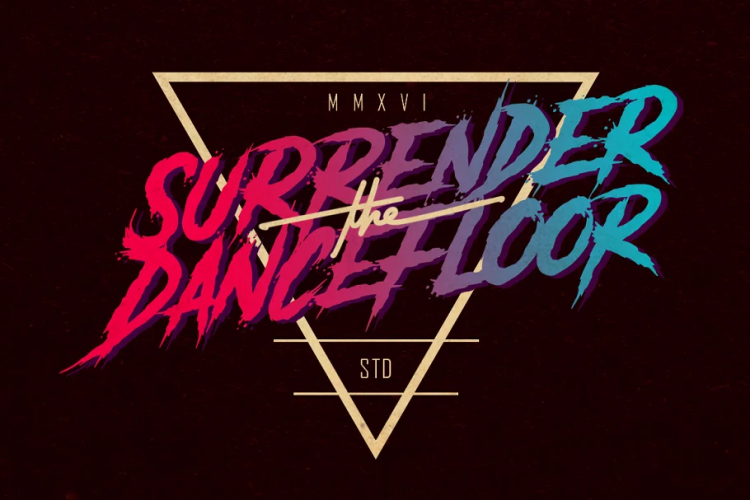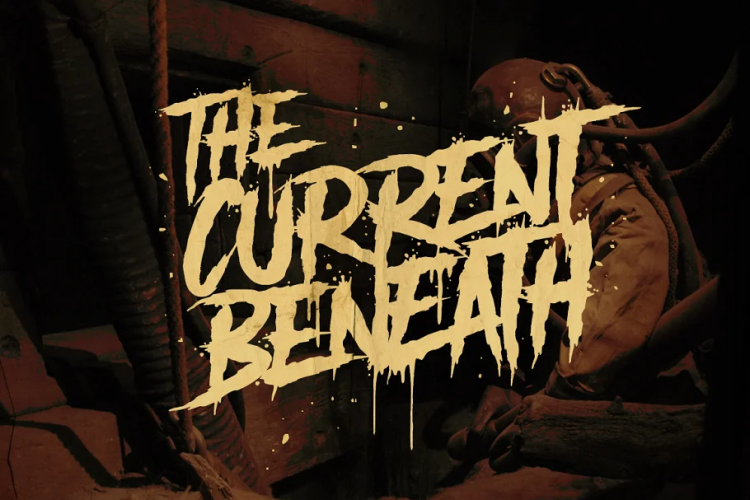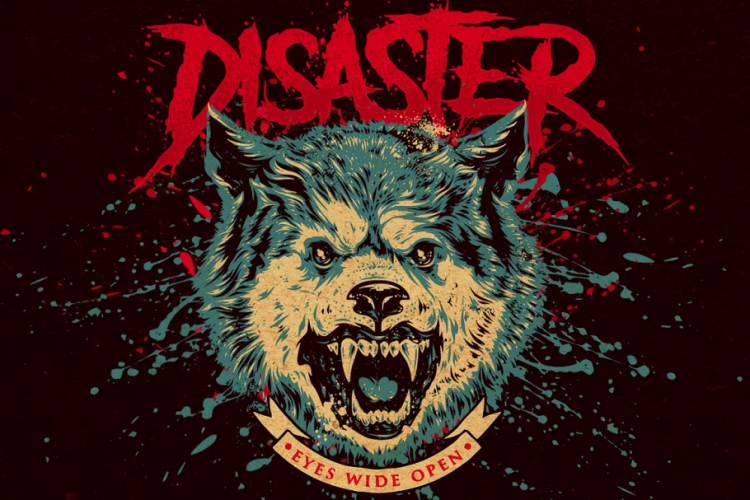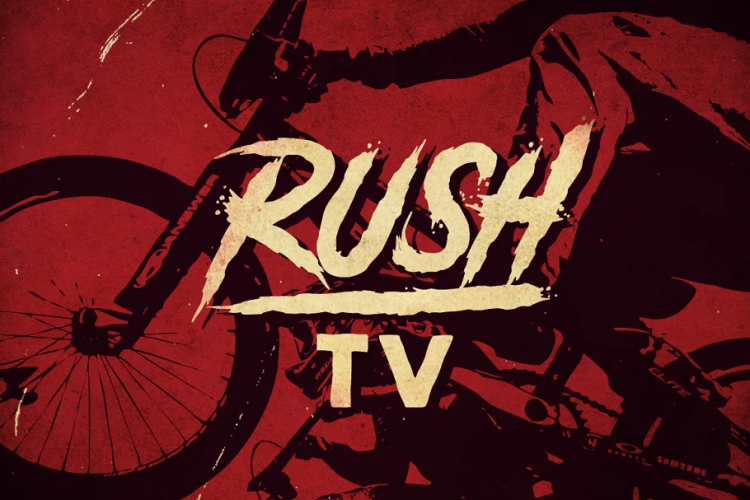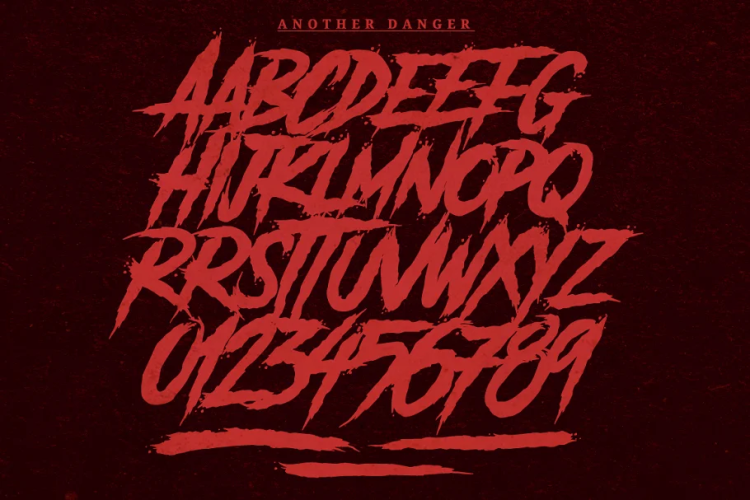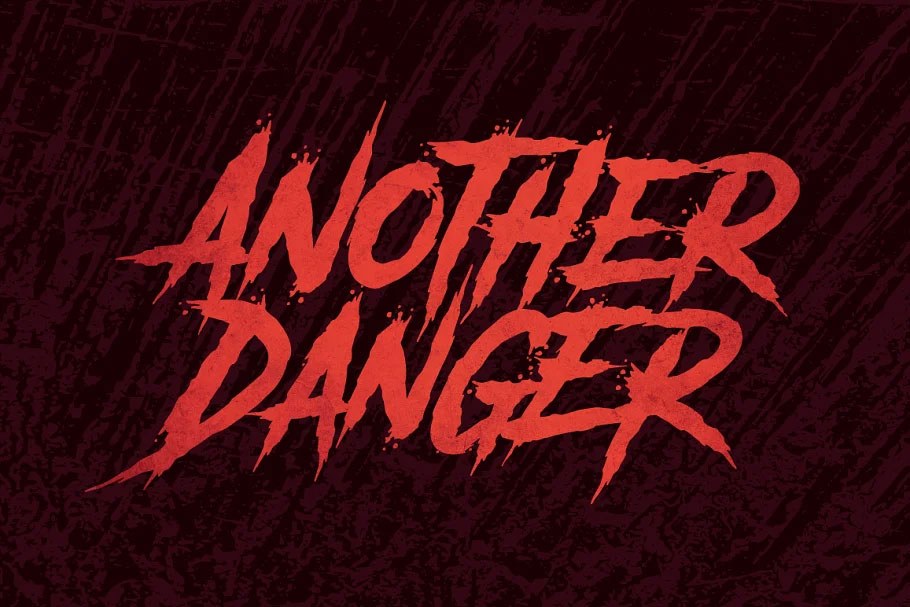
Another Danger Font
Introducing Another Danger, the horror typeface that defies convention and embraces chaos with every stroke. Born from unruly inks that imbue each glyph with an enigmatic allure, Another Danger is more than just a font it’s a statement, a rebellion against the mundane.
Whether it is a poster, album or brand, Another Danger is your secret cache. Spread your creativity all over the paper, no matter how ordinary or abstract it would look. When Another Danger is in play, the opportunities are innumerable and the danger can be hidden as if it were below.
Another Danger
Another Danger Slanted
On the other hand, Danger stands out from the other fonts due to its exuberance of illegible letters. It goes beyond the norm of previous fonts – it welcomes imperfection, with each glyph having the air of unpredictability and every spark of excitement. Edginess comes with the industrial hardcore vibe and retro styling that are perfectly complementary to any design.
Comparing Typefaces Another Danger Typeface can be used in composition in different design contexts. It is especially suitable for the projects where deadly, witty, and horror design is needed, like Halloween posters, album covers, brand campaigns, etc. Explore utilization of different sizes, colors, and layering effects to obtain maximum impact.
Of course, the Another Danger Font can be used in digital media like sites, social media graphics and digital advertisements. Its unique style gives a character to the project, and turns it into a piece which will be easily recognizable and logged in the subconscious minds of its potential viewers.
Another Danger Typeface typically comes in one style, characterized by its bold and chaotic appearance. However, some variations or alternative versions may exist, offering slight modifications to the original design. Be sure to explore any additional options available when obtaining the typeface.
Where Another Danger Font works best
Another Danger Font is built for size: event posters, hero headlines and billboard-style layouts.
High contrast display type like Another Danger Font reads instantly in thumbnails and motion graphics.
What is Another Danger Font good for?